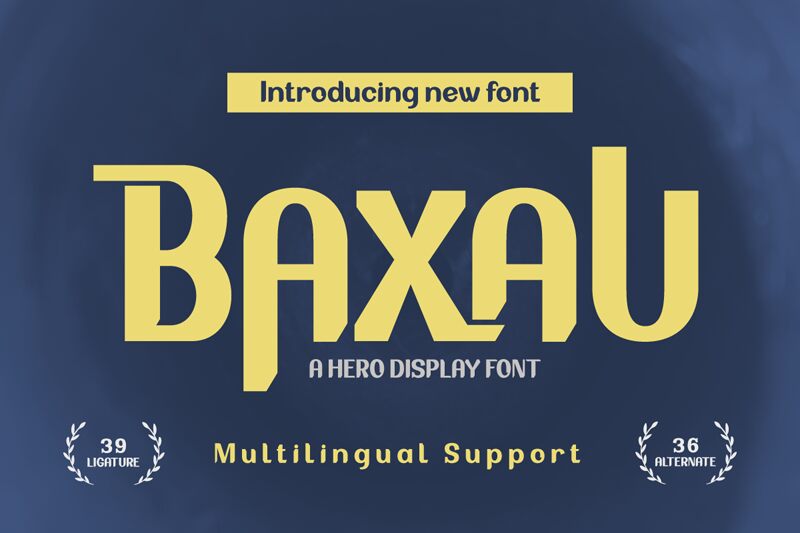
BAXAUTRIAL Regular
Baxau font by Twinletter is a free display font designed with sturdy, geometric, and industrial visual elements. This uniform typeface has retro influences and minimal design elements that enhance its impactful presence. It features smooth balanced lines; an overall coherent structure; and simple yet remarkable details.
This multifunctional condensed font will exhibit perfect visuals when used in posters, signage, product labels, book covers, section headings, animated videos or video games designs among others. Use this minimalist gem for magazine layouts or digital platforms like websites or apps to elevate the look of your projects instantly!